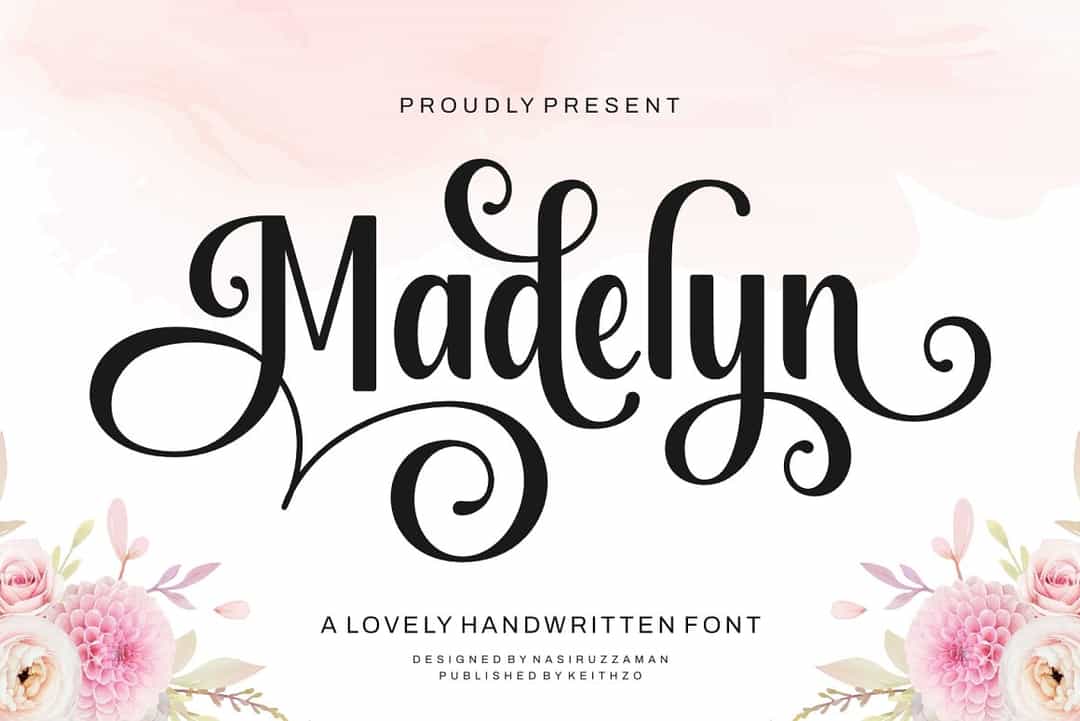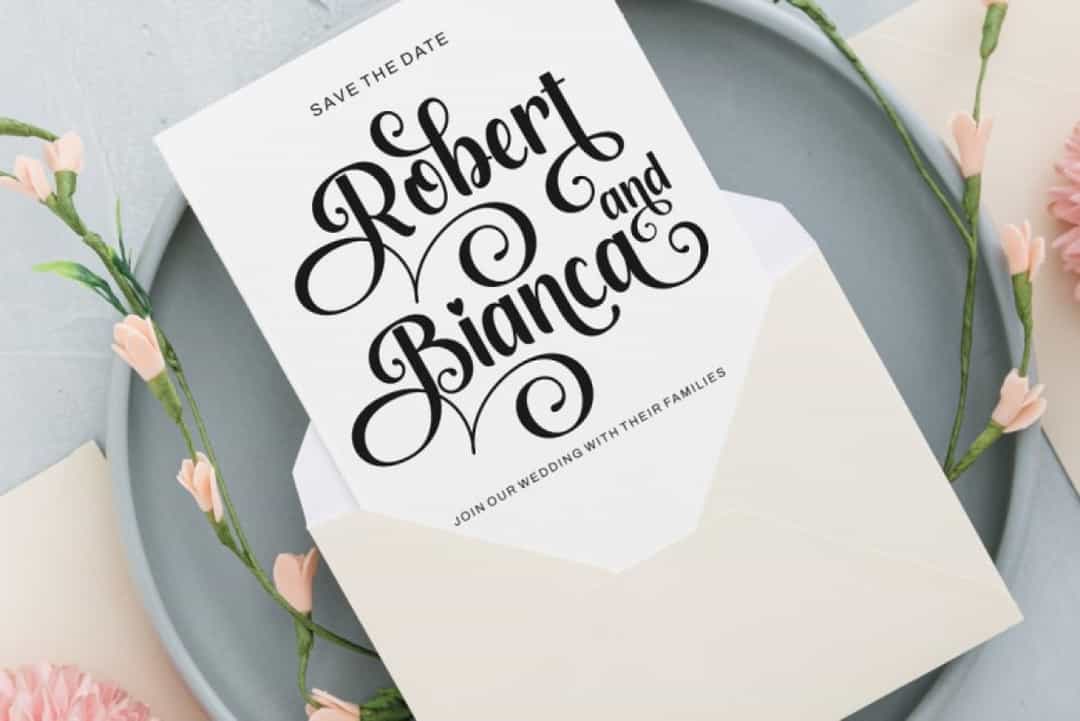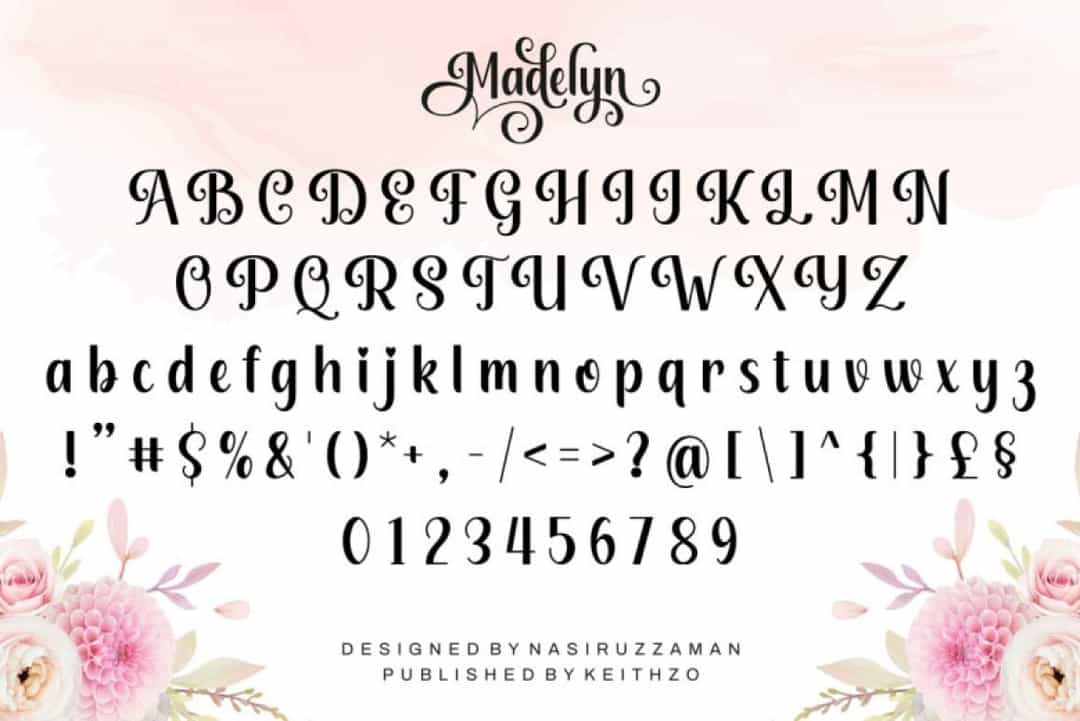
Madelyn It is an elegant calligraphy font with smooth curves and strokes that add character and warmth to your designs. Ideal for invitations or greeting cards or simply adding handwritten charm to your work, Madelyn makes for the ideal solution.